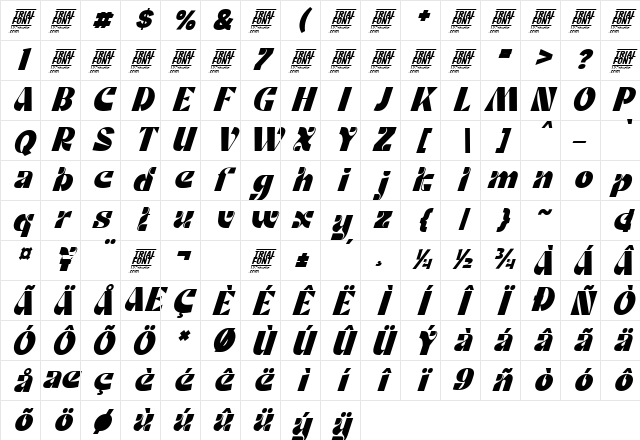
affiliate mastery demo Italic Free Font
affiliate mastery demo Italic
Foundry: 177Studio.com
Designer: 177Studio.com
Complete affiliate mastery demo Italic glyph index. Displaying only characters natively supported by affiliate mastery demo Italic font.
Design Context for affiliate mastery demo
affiliate mastery demo is a composed and adaptable typeface that performs quietly and consistently across a wide range of design contexts. The slanted form adds forward momentum and visual energy.
Pro Tip: Use affiliate mastery demo for emphasis, pull quotes, and subheadings where its slanted energy can add rhythm to the layout.